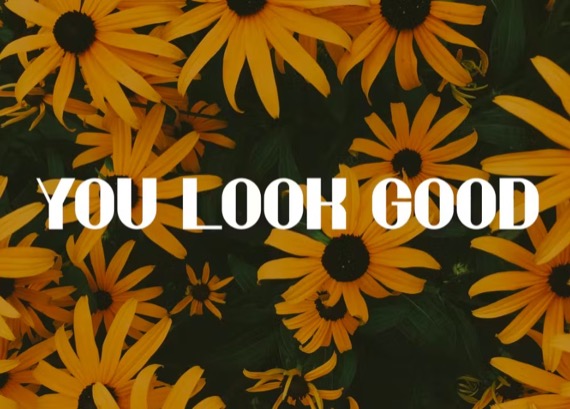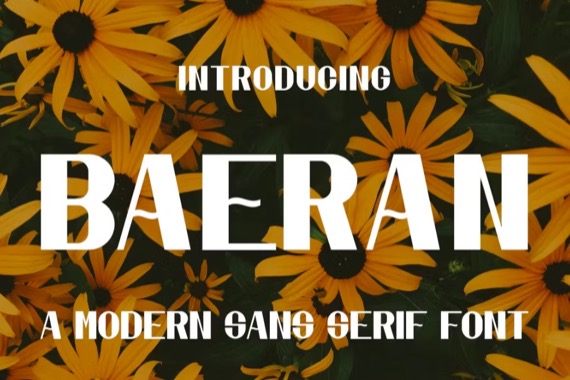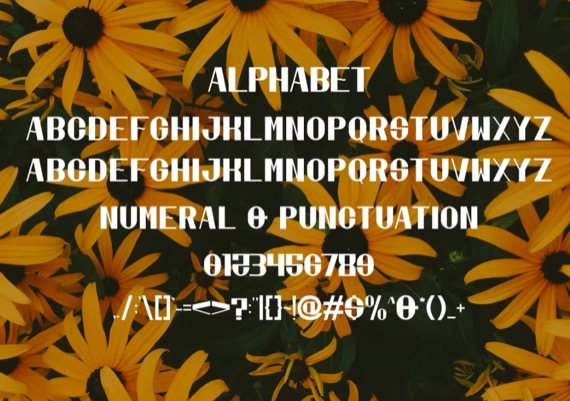
Baeran is a modern and authentic sans serif font. Perfect for both professional and branding needs of a product. This font is suitable for any branding project like quotes, logo, blog header, poster, banding, letter, invitation, stationery, etc… Designed as a versatile and flexible that can be used on a range of projects and mediums. outstanding in a wide range of contexts.
Baeran Sans Serif Font